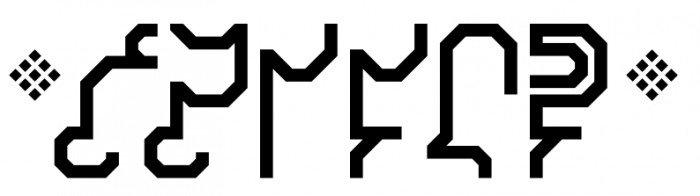
WIP ithkuil font
DONE:
primare aspect characters
vertical/diagonal tail modifications
above/below/midline dicaritics
secondary and tertiary aspect characters
secondary and tertiary aspect character diacritics
consonantal characters
tail modifications for the horizontal sections
placeholders
punctuation
numbers
===============
The diacritic/tail modification placements would be handled using opentype GSUB and GPOS.
Enjoy the several hundreds of various zero width diacritics and modification characters stacking on top of each other.